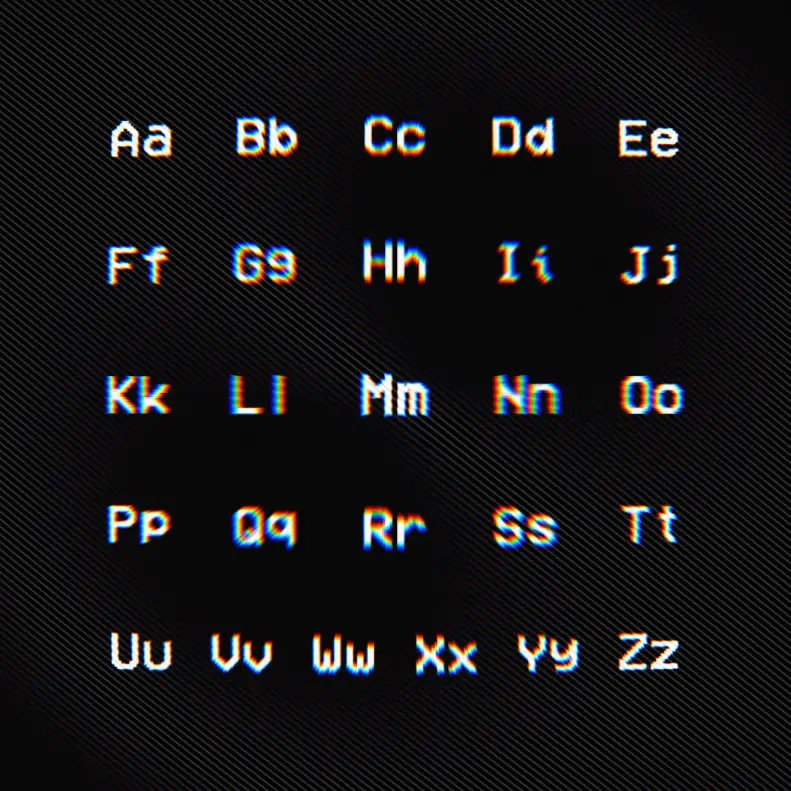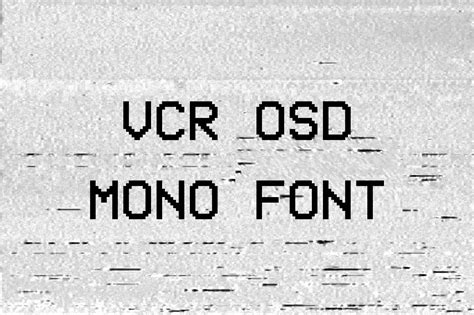
Vcr Osd Mono Font Generator - Web download vcr osd mono font, a font designed by mrmanet that supports mono mode and has a simple and clean design. Web vcr osd mono font generator. Version 1.00 april 12, 2014, initial release. Type in your text, select the. Web 3,273,574 downloads (1,091 yesterday) 27 comments 100% free. This text font was made using. Experiment with our vcr osd mono font generator!
This text font was made using. Experiment with our vcr osd mono font generator! Web 3,273,574 downloads (1,091 yesterday) 27 comments 100% free. Type in your text, select the. Web download vcr osd mono font, a font designed by mrmanet that supports mono mode and has a simple and clean design. Version 1.00 april 12, 2014, initial release. Web vcr osd mono font generator.
Type in your text, select the. Experiment with our vcr osd mono font generator! Web vcr osd mono font generator. Web download vcr osd mono font, a font designed by mrmanet that supports mono mode and has a simple and clean design. Web 3,273,574 downloads (1,091 yesterday) 27 comments 100% free. This text font was made using. Version 1.00 april 12, 2014, initial release.
VCR OSD Mono Font
Experiment with our vcr osd mono font generator! Web vcr osd mono font generator. Version 1.00 april 12, 2014, initial release. Type in your text, select the. Web download vcr osd mono font, a font designed by mrmanet that supports mono mode and has a simple and clean design.
Web vcr osd mono font generator. This text font was made using. Type in your text, select the. Web 3,273,574 downloads (1,091 yesterday) 27 comments 100% free. Version 1.00 april 12, 2014, initial release.
Experiment with our vcr osd mono font generator! Web vcr osd mono font generator. Web download vcr osd mono font, a font designed by mrmanet that supports mono mode and has a simple and clean design. This text font was made using. Type in your text, select the.
This text font was made using. Experiment with our vcr osd mono font generator! Web 3,273,574 downloads (1,091 yesterday) 27 comments 100% free. Version 1.00 april 12, 2014, initial release. Type in your text, select the.
Experiment with our vcr osd mono font generator! This text font was made using. Version 1.00 april 12, 2014, initial release. Web 3,273,574 downloads (1,091 yesterday) 27 comments 100% free. Type in your text, select the.
Version 1.00 april 12, 2014, initial release. Experiment with our vcr osd mono font generator! Web vcr osd mono font generator. Type in your text, select the. Web download vcr osd mono font, a font designed by mrmanet that supports mono mode and has a simple and clean design.
Type in your text, select the. Web 3,273,574 downloads (1,091 yesterday) 27 comments 100% free. Experiment with our vcr osd mono font generator! Web download vcr osd mono font, a font designed by mrmanet that supports mono mode and has a simple and clean design. This text font was made using.
Web 3,273,574 downloads (1,091 yesterday) 27 comments 100% free. Type in your text, select the. Experiment with our vcr osd mono font generator! Web vcr osd mono font generator. This text font was made using.
Web vcr osd mono font generator. Experiment with our vcr osd mono font generator! This text font was made using. Web download vcr osd mono font, a font designed by mrmanet that supports mono mode and has a simple and clean design. Type in your text, select the.
Web 3,273,574 downloads (1,091 yesterday) 27 comments 100% free. Version 1.00 april 12, 2014, initial release. Type in your text, select the. Web download vcr osd mono font, a font designed by mrmanet that supports mono mode and has a simple and clean design.